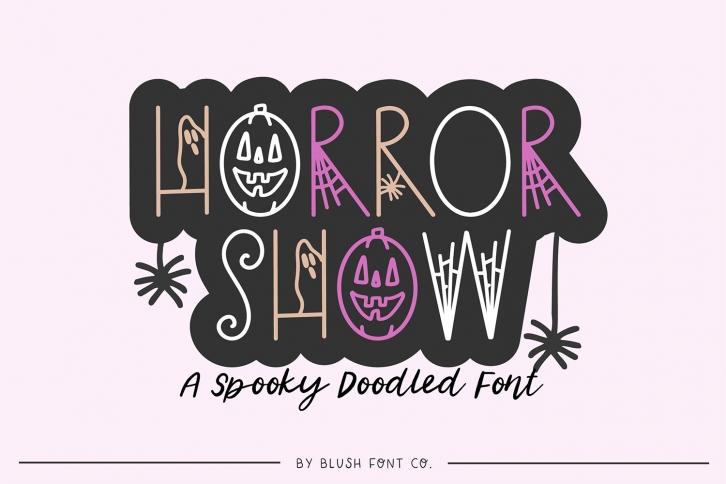
HORROR SHOW Spooky Doodled Halloween is a beautiful font that was designed by Blush Font Co. It's a great choice for designers and creatives who need such a font. It was released on August 15, 2022 and the file size is 1.12 MB. HORROR SHOW Spooky Doodled Halloween may give a more youthful, expressive and casual look to your project. It is a very beautiful, refined, elegant, and high-quality font.